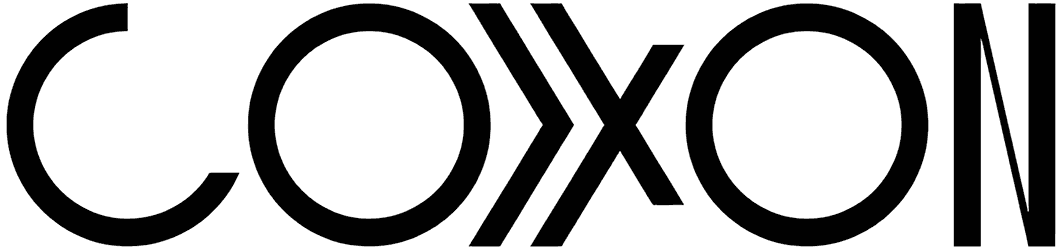
Coxxon Font
Completely futuristic while inspired by modernity and a minimalist sense of sans serif font, it brought a turning point in a design competition to create a huge impact on all audiences.
Coxxon, with its all-cap letters, wants to act successfully in the magazine, fashion, cosmetic packaging, or even other advertising to release more approachable, trendy, and also sci-fi impressions at the moment. Give it a shot and form a professional and racing output.